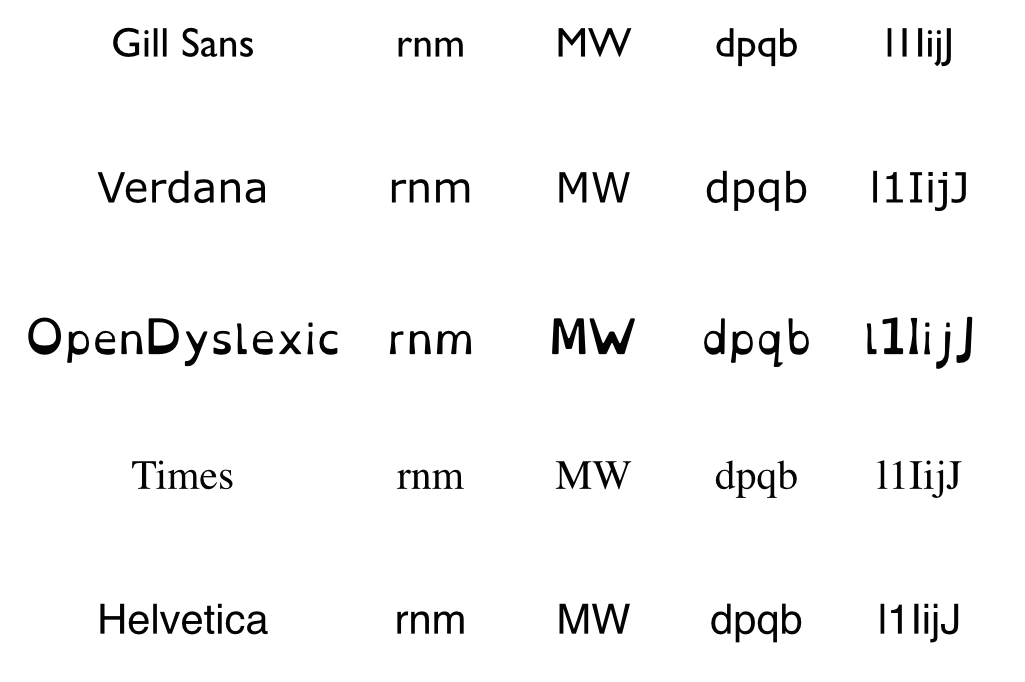
Best Font For Dyslexia On Word . Font style can play a significant role in readability for people with dyslexia. What are the best dyslexia fonts? Dyslexie is a special font that’s easier for dyslexic people to read than standard type. Some fonts can improve reading speed and comprehension, while. Opendyslexic is a typeface designed against some common symptoms of dyslexia. It’s free for personal use and easy to include in microsoft word, excel or powerpoint for windows or mac. Use sans serif fonts, such as arial and comic sans, as letters can appear less crowded. Alternatives include verdana, tahoma, century. The best fonts for dyslexia tackle.
What are the best dyslexia fonts? Use sans serif fonts, such as arial and comic sans, as letters can appear less crowded. It’s free for personal use and easy to include in microsoft word, excel or powerpoint for windows or mac. Alternatives include verdana, tahoma, century. Dyslexie is a special font that’s easier for dyslexic people to read than standard type. Opendyslexic is a typeface designed against some common symptoms of dyslexia. Font style can play a significant role in readability for people with dyslexia. The best fonts for dyslexia tackle. Some fonts can improve reading speed and comprehension, while.
Best Font For Dyslexia On Word What are the best dyslexia fonts? Some fonts can improve reading speed and comprehension, while. It’s free for personal use and easy to include in microsoft word, excel or powerpoint for windows or mac. Alternatives include verdana, tahoma, century. Dyslexie is a special font that’s easier for dyslexic people to read than standard type. Font style can play a significant role in readability for people with dyslexia. Use sans serif fonts, such as arial and comic sans, as letters can appear less crowded. What are the best dyslexia fonts? Opendyslexic is a typeface designed against some common symptoms of dyslexia. The best fonts for dyslexia tackle.
Best Fonts for Dyslexia Best Font For Dyslexia On Word The best fonts for dyslexia tackle. Alternatives include verdana, tahoma, century. Use sans serif fonts, such as arial and comic sans, as letters can appear less crowded. Opendyslexic is a typeface designed against some common symptoms of dyslexia. It’s free for personal use and easy to include in microsoft word, excel or powerpoint for windows or mac. What are the. Best Font For Dyslexia On Word.
The Dyslexie Font Best Font For Dyslexia On Word Font style can play a significant role in readability for people with dyslexia. What are the best dyslexia fonts? Use sans serif fonts, such as arial and comic sans, as letters can appear less crowded. Alternatives include verdana, tahoma, century. Opendyslexic is a typeface designed against some common symptoms of dyslexia. Some fonts can improve reading speed and comprehension, while.. Best Font For Dyslexia On Word.
The Best Fonts for Dyslexia Support Clearer Text for All Best Font For Dyslexia On Word It’s free for personal use and easy to include in microsoft word, excel or powerpoint for windows or mac. Dyslexie is a special font that’s easier for dyslexic people to read than standard type. Opendyslexic is a typeface designed against some common symptoms of dyslexia. Font style can play a significant role in readability for people with dyslexia. The best. Best Font For Dyslexia On Word.
Best Fonts for Dyslexia and Why They Work Best Font For Dyslexia On Word Some fonts can improve reading speed and comprehension, while. Use sans serif fonts, such as arial and comic sans, as letters can appear less crowded. It’s free for personal use and easy to include in microsoft word, excel or powerpoint for windows or mac. Opendyslexic is a typeface designed against some common symptoms of dyslexia. Dyslexie is a special font. Best Font For Dyslexia On Word.
Reading Fluency and Comprehension Tips for Dyslexia Best Font For Dyslexia On Word The best fonts for dyslexia tackle. It’s free for personal use and easy to include in microsoft word, excel or powerpoint for windows or mac. Use sans serif fonts, such as arial and comic sans, as letters can appear less crowded. Opendyslexic is a typeface designed against some common symptoms of dyslexia. Some fonts can improve reading speed and comprehension,. Best Font For Dyslexia On Word.
Best Fonts for Dyslexia Best Font For Dyslexia On Word Opendyslexic is a typeface designed against some common symptoms of dyslexia. Alternatives include verdana, tahoma, century. The best fonts for dyslexia tackle. What are the best dyslexia fonts? Some fonts can improve reading speed and comprehension, while. Font style can play a significant role in readability for people with dyslexia. Use sans serif fonts, such as arial and comic sans,. Best Font For Dyslexia On Word.
Dyslexie Font Better reading for everybody Best Font For Dyslexia On Word What are the best dyslexia fonts? It’s free for personal use and easy to include in microsoft word, excel or powerpoint for windows or mac. Dyslexie is a special font that’s easier for dyslexic people to read than standard type. Font style can play a significant role in readability for people with dyslexia. Alternatives include verdana, tahoma, century. The best. Best Font For Dyslexia On Word.
Best Font For Dyslexic Students at Marjorie Colbert blog Best Font For Dyslexia On Word Font style can play a significant role in readability for people with dyslexia. What are the best dyslexia fonts? The best fonts for dyslexia tackle. Alternatives include verdana, tahoma, century. Use sans serif fonts, such as arial and comic sans, as letters can appear less crowded. Dyslexie is a special font that’s easier for dyslexic people to read than standard. Best Font For Dyslexia On Word.